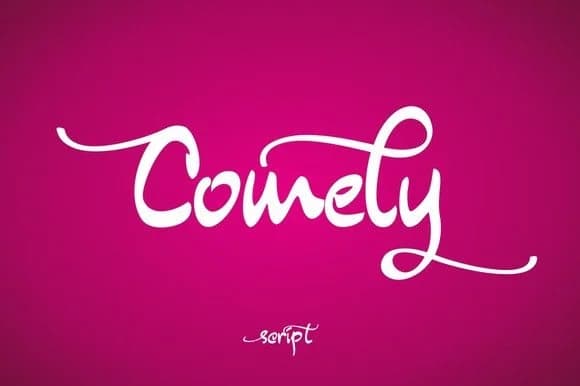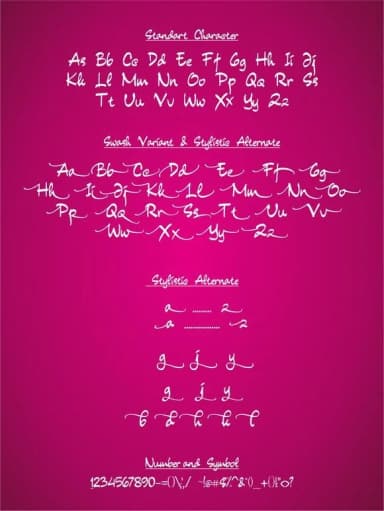
About Comely Font
Comely Font by Byuly Ayika is a hand-lettered script typeface that delivers authentic handwritten warmth to your creative work. The typeface balances organic, flowing letterforms with consistent legibility, making it equally effective in headline sizes and smaller applications where clarity matters. Its natural rhythm creates visual interest without sacrificing readability, a balance that's valuable across both print and digital projects.
This script works beautifully across multiple design contexts. Consider using it for wedding invitation suites that call for personal touches and romantic appeal, handlettered quote graphics for social media content that engages your audience, custom vinyl decals with intricate details for crafters and small businesses, or Etsy product labels that need distinctive personality on shelves. The typeface pairs equally well with traditional branding work, custom wood signage projects, and decorative packaging designs that set boutique products apart from mass-market alternatives.
- Elegant, Flowing, Comely
Comely Font is a script font that shines as a display or heading face. Pair it with a clean sans-serif or serif font for body text β the contrast creates a clear hierarchy while the two styles stay balanced and easy to read.
Comely Font
by Byuly Ayika